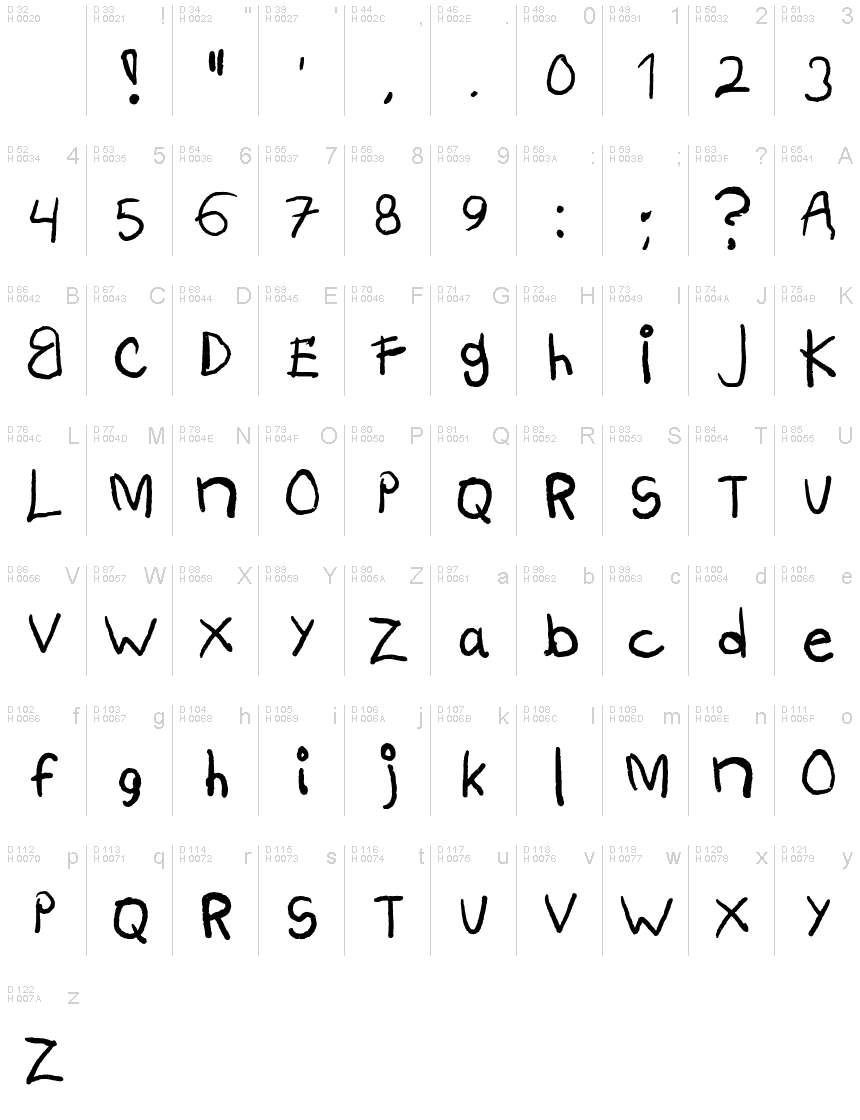
Sadekids Regular
Looking for a font that's equal parts edgy and playful? Look no further than Sadekids, the latest creation from designer Alexander de Sade. Its semi-light weight and trashy handwritten style make it perfect for a variety of projects - from grungy concert posters to whimsical children's book covers. Use it to add a touch of rebellion to your next design project, or let its playful spirit shine through in your branding materials. No matter how you use it, Sadekids is sure to make a bold statement.